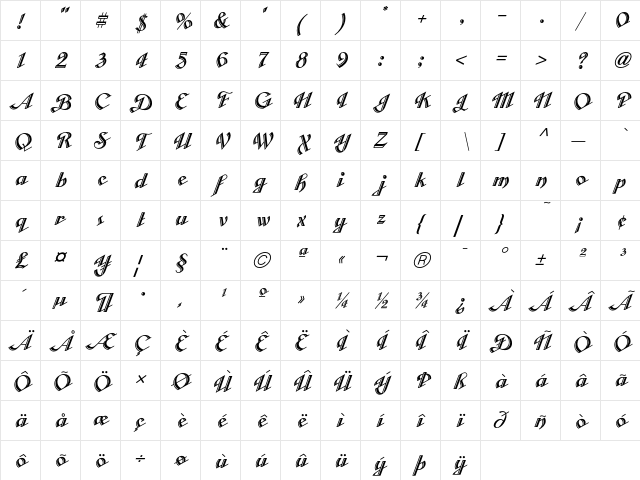
Cabarga CursivaICGAlternate
Design Context for Cabarga Typeface
Cabarga brings a calligraphic fluidity to the page — its connecting strokes and expressive curves give it an unmistakably human quality.
Font Pairing: Combine Cabarga with a simple geometric sans for maximum contrast — the tension between flowing curves and clean structure is a classic typographic pairing.
Pro Tip: Pair Cabarga with a clean sans-serif for supporting text. The contrast between fluid script and geometric structure creates an elegant typographic hierarchy.